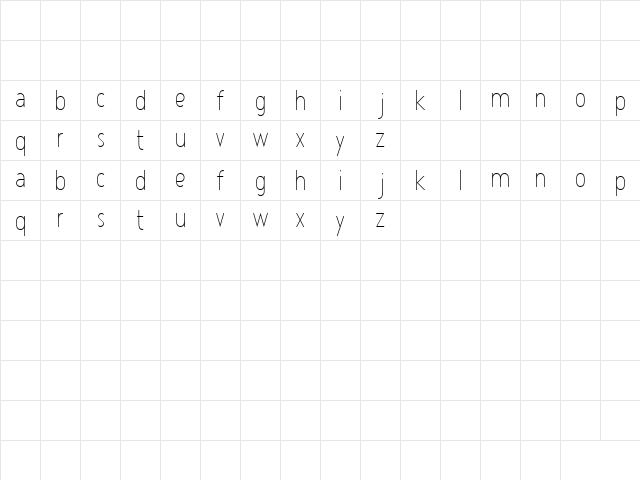
Atype 1 Light
| Foundry | Salvo Nicolosi |
| Designer | Salvo Nicolosi |
Design Context for Atype 1 Typeface
Atype 1 takes a measured approach to typography — its balanced proportions and neutral character make it a reliable workhorse for both digital and print work. Its slender proportions lend an understated elegance to any composition.